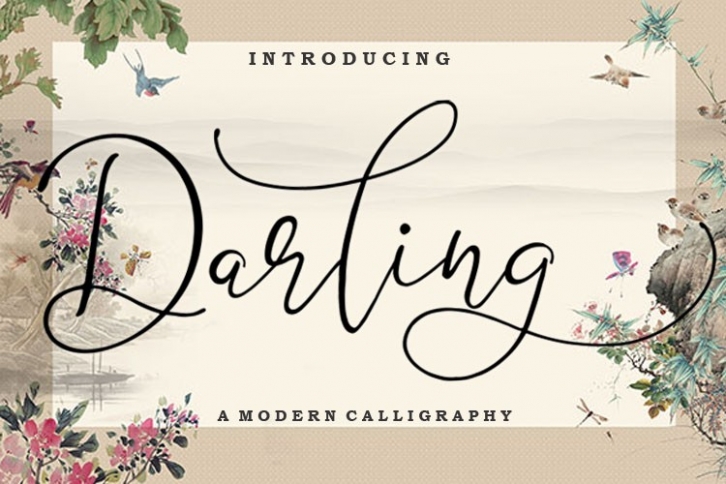
Darling is a trendy and unique font with an authentic style. It was designed by FontCloud and it's a great choice for creative people who need such a font. It was released on April 4, 2020 and the file size is 21.31 MB. Darling will add an organic vibe to any design idea!